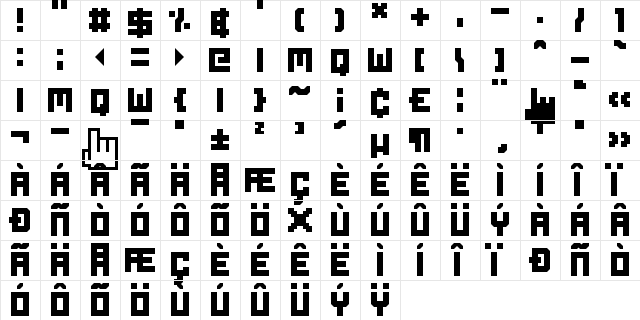
Ode to Idle Gaming Regular
Design Context for Ode to Idle Gaming Typeface
Ode to Idle Gaming is a composed and adaptable typeface that performs quietly and consistently across a wide range of design contexts.
Pro Tip: Use Ode to Idle Gaming in both headline and body roles to test its range before committing to a single application.